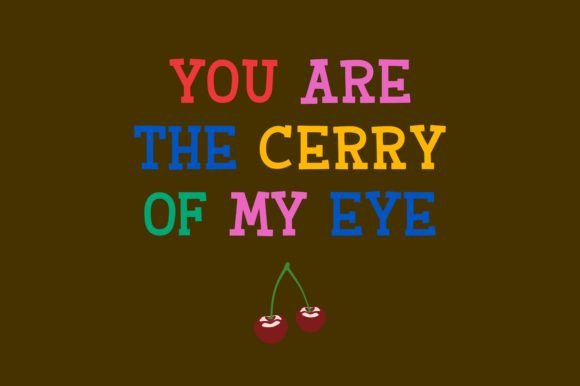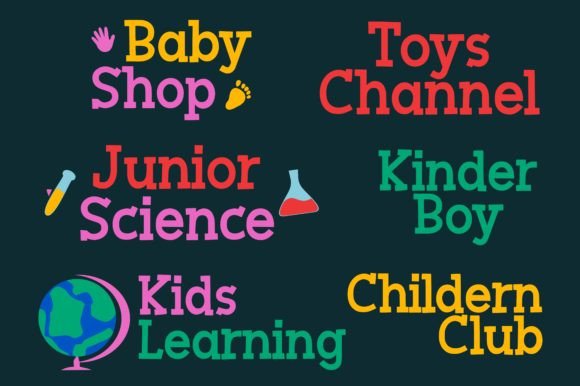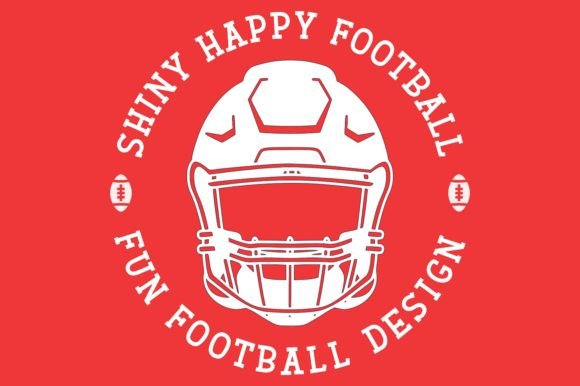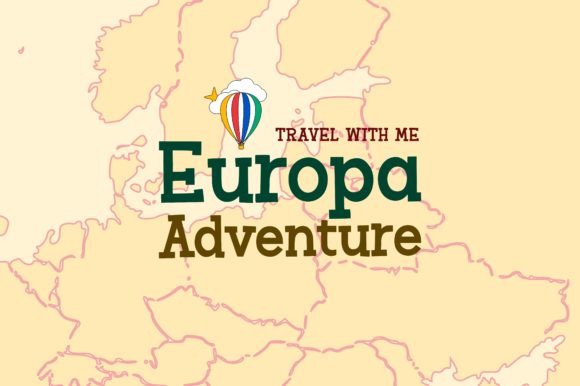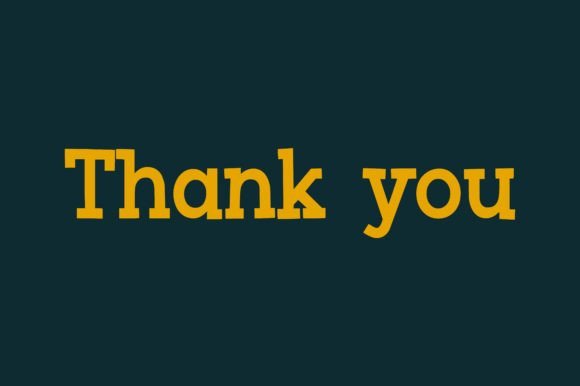
Introduction to Kinderlab Font
Have you ever stumbled upon a design element that instantly sparks your creativity and transports you to a world of endless possibilities? For many designers, this magical moment often comes when discovering a unique and captivating font. One such treasure is the Kinderlab Font, a hand-drawn slab serif font that exudes a playful and airy charm. Its delightful precision makes it a valuable addition to any design toolbox, perfect for injecting whimsy and wonder into your creative projects.
Key Features of Kinderlab Font
- High-quality, professional design suitable for various creative projects, including educational materials, logos, and graphics.
- Designed with a clear, legible style, making it perfect for use in a variety of contexts, from print materials to digital displays.
- Includes a range of characters, including uppercase and lowercase letters, numbers, and punctuation marks, ensuring comprehensive coverage for creative projects.
Honest Review: Kinderlab Font
I recently stumbled upon the Kinderlab Font, and I must say it’s a delightful addition to any creative project. The font is a high-quality, versatile resource that can be downloaded for free.
Here are some aspects that work well:
- ✨ Unique and playful design that can add a touch of whimsy to any design
- ⚠️ Limited character set, which may not be ideal for long-form content
Overall, I’m impressed with the Kinderlab Font. It’s a fantastic design resource that can elevate any creative project. While it may have some limitations, it’s a great option for personal or non-commercial use. If you’re looking for a free, high-quality font, Kinderlab Font is definitely worth checking out.
Some tips for getting the most out of the Kinderlab Font include using it for titles and headings, and combining it with other design elements to create a unique and eye-catching design. Common use cases for the Kinderlab Font include creating branding materials, such as logos and business cards, as well as designing marketing materials, such as brochures and flyers.